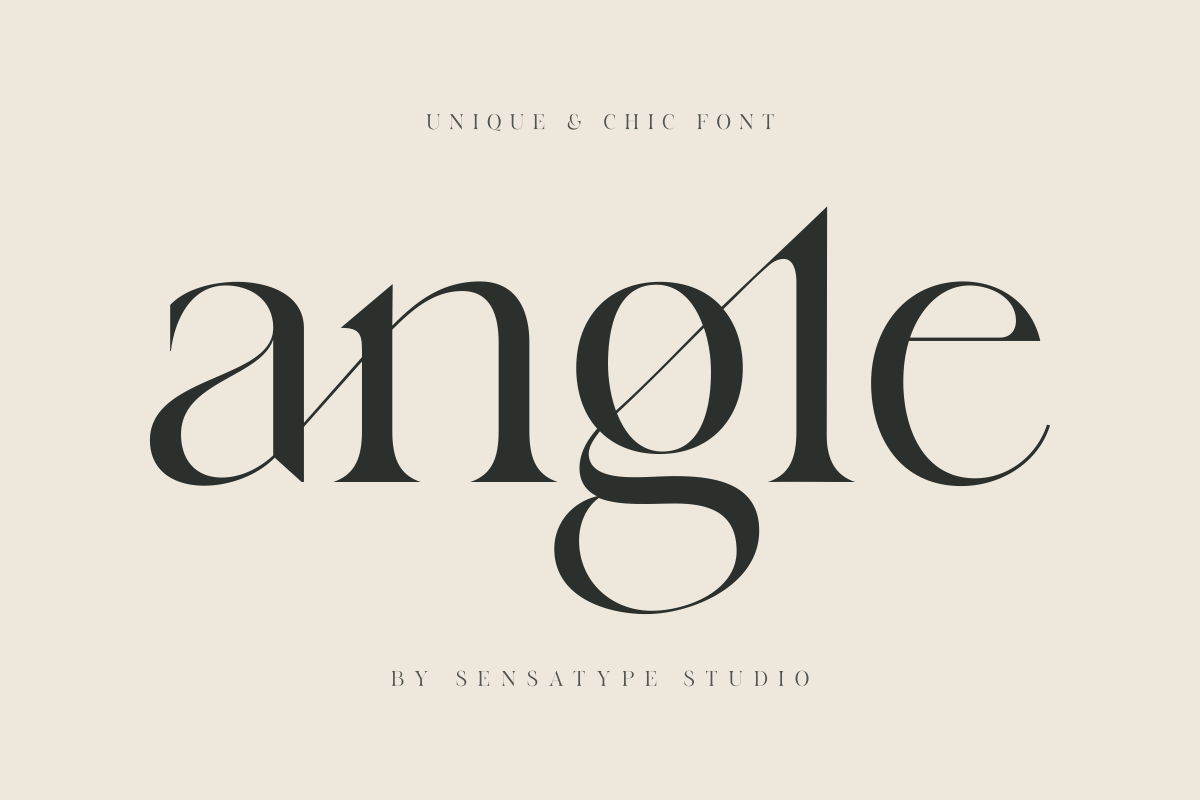
Angle
-Unique Chic Display Font
Angle - Unique Chic Display Font
Angle is a unique chic font designed with a classy and elegant personality for modern creative projects. Featuring stylish letterforms and a refined visual character, this typeface brings a sophisticated touch to premium designs.
Perfect for logo design, luxury branding, wedding invitations, fashion projects, beauty products, packaging, and social media graphics. Angle helps designers create memorable visual identities with an elegant and distinctive typography style.
With its balanced shapes and unique appearance, Angle is a versatile font choice for brands that need a modern, classy, and creative look.